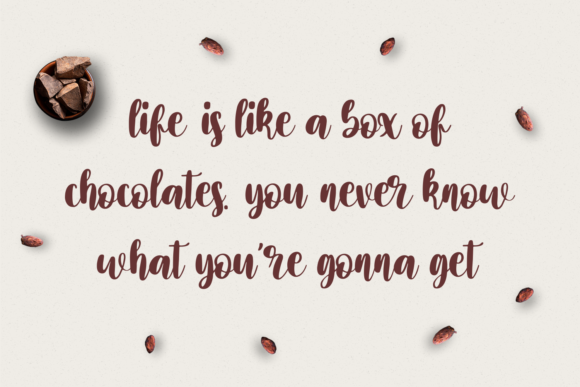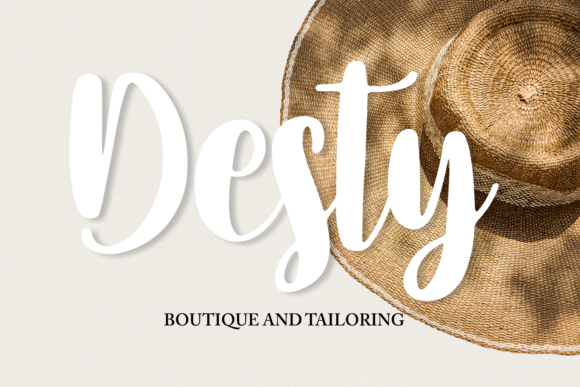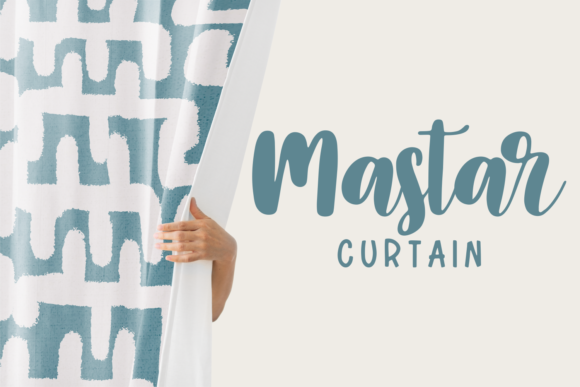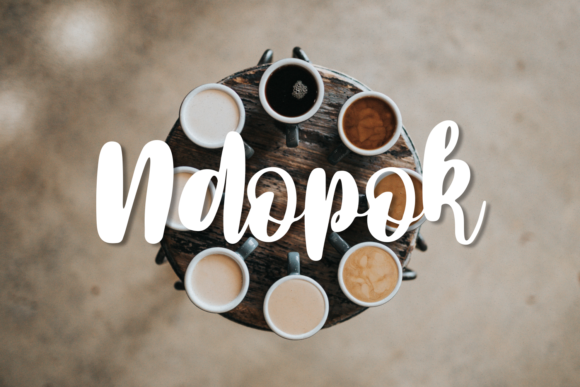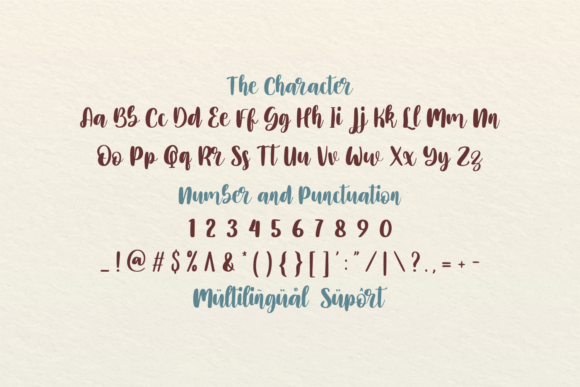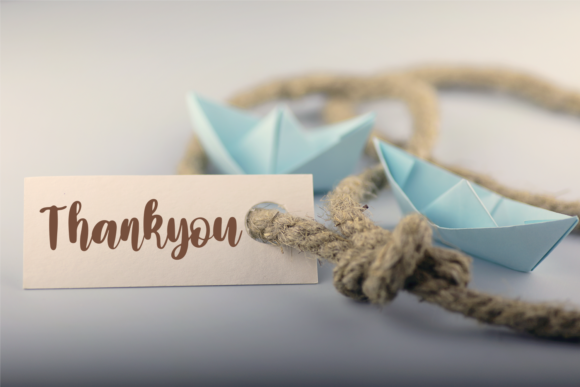
Biscuit Recipe Font
About Biscuit Recipe Font
Biscuit Recipe is a lovely and delicate script font that exudes elegance and class. This font was particularly crafted for those who need a beautiful and refreshing look to their designs.